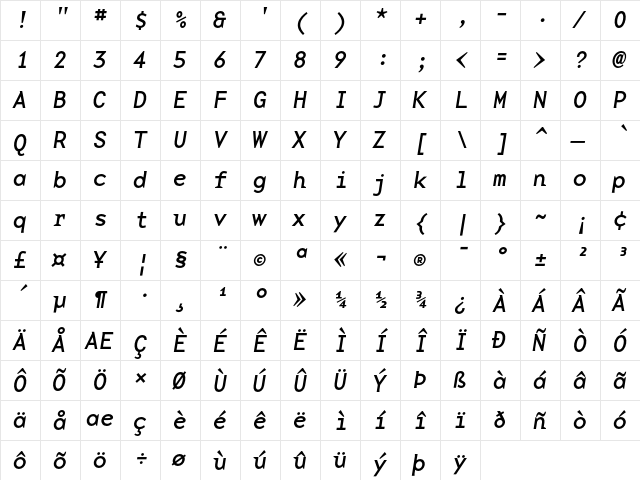
BaseMono Medium Italic Font Preview
| Foundry | C) Emigre Graphics; designed by Zuzana Licko |
Design Context for BaseMono Typeface
BaseMono uses fixed-width spacing throughout, giving it the structured, systematic character associated with coding environments and technical documentation. Its italic angle brings a sense of urgency and motion to the letterforms.
Well-suited to data-driven dashboards, coding tutorials, and any design that wants to reference the world of programming.
Pro Tip: Use BaseMono with slightly increased line-height for extended reading — fixed-width spacing can feel dense in longer passages without extra breathing room.